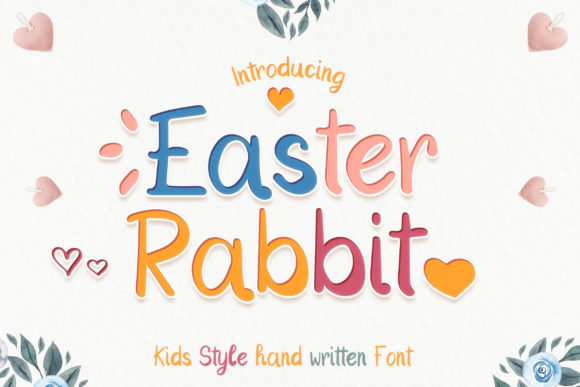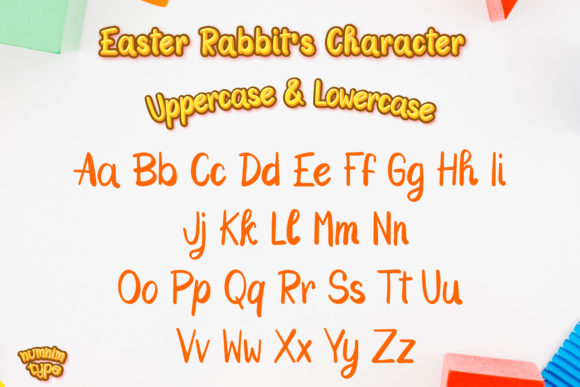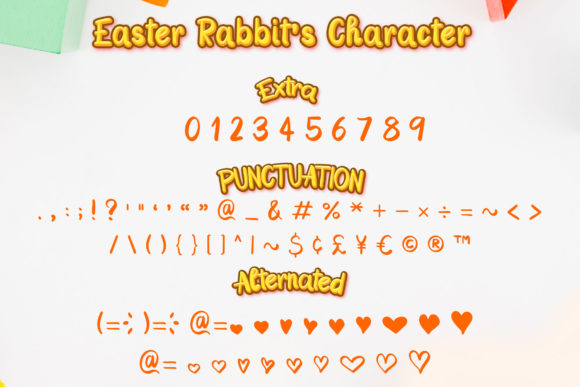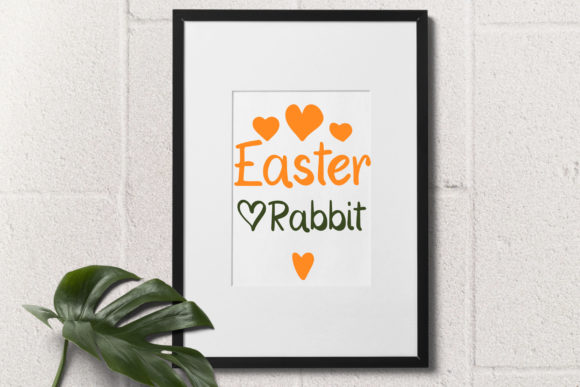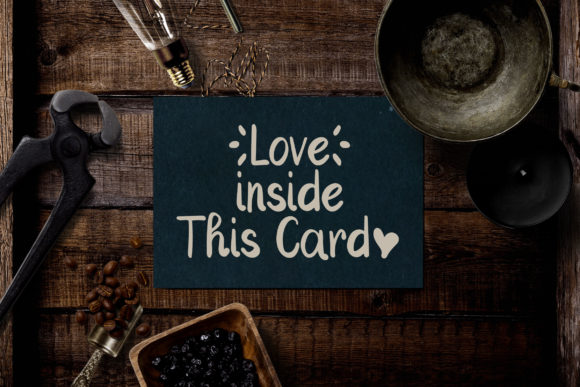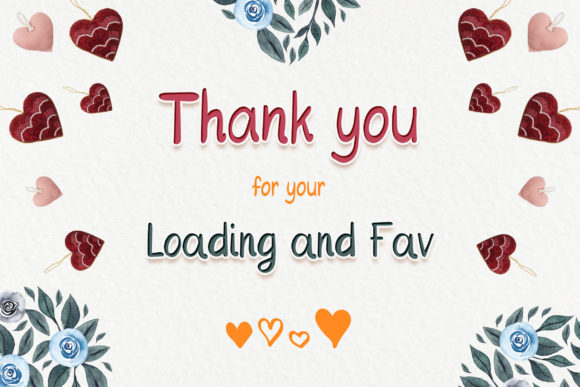
Easter Rabbit Font
About Easter Rabbit Font
Easter Rabbit is a joyful and friendly handwritten font, featuring cute doodle elements. Fall in love with its sweet, flexible style and use it to create lovely designs for school or children related.